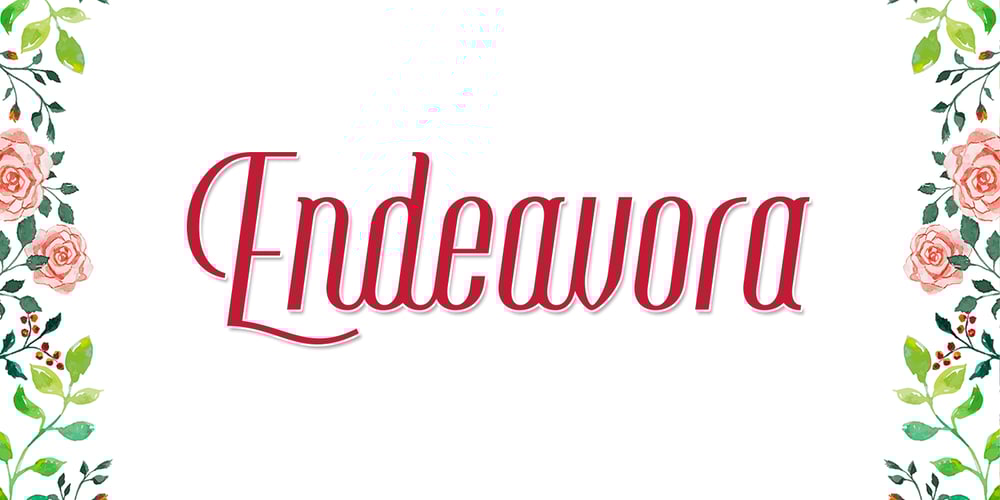
Endeavora
Endeavora font
Endeavora Font Family was designed by Arwan Sutanto and published by Locomotype. Endeavora contains 5 styles and family package options. Endeavora is made for those who like tidiness, elegance and a beautiful slim shape in poster design, headline or wedding invitation. The letters are carefully created so that every word made using Endeavora will appear very elegant and professional. Some opentype features like standard and disrectional ligatures as well as capital swashes will make it easier to make your design more personal. Comes with several variants to simplify your work, ie regular script, sans, serif and western. For sans and serif variants, you will find several capital letters paired uniquely. This will make you have a very personal typeface. While the script version has two variants: regular as the original version and rounded version that eliminates every sharp corner into a soft curve. This font is available in OTF and TTF format, PUA encoded and multilingual support.